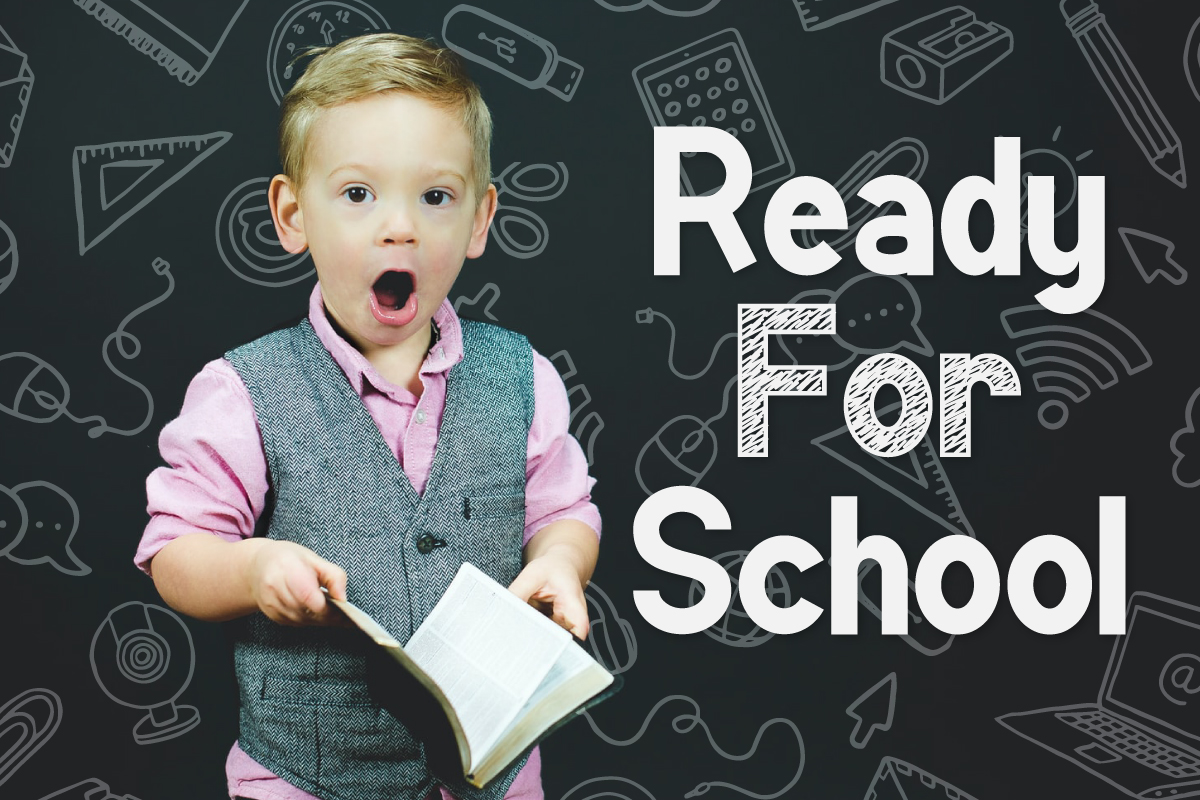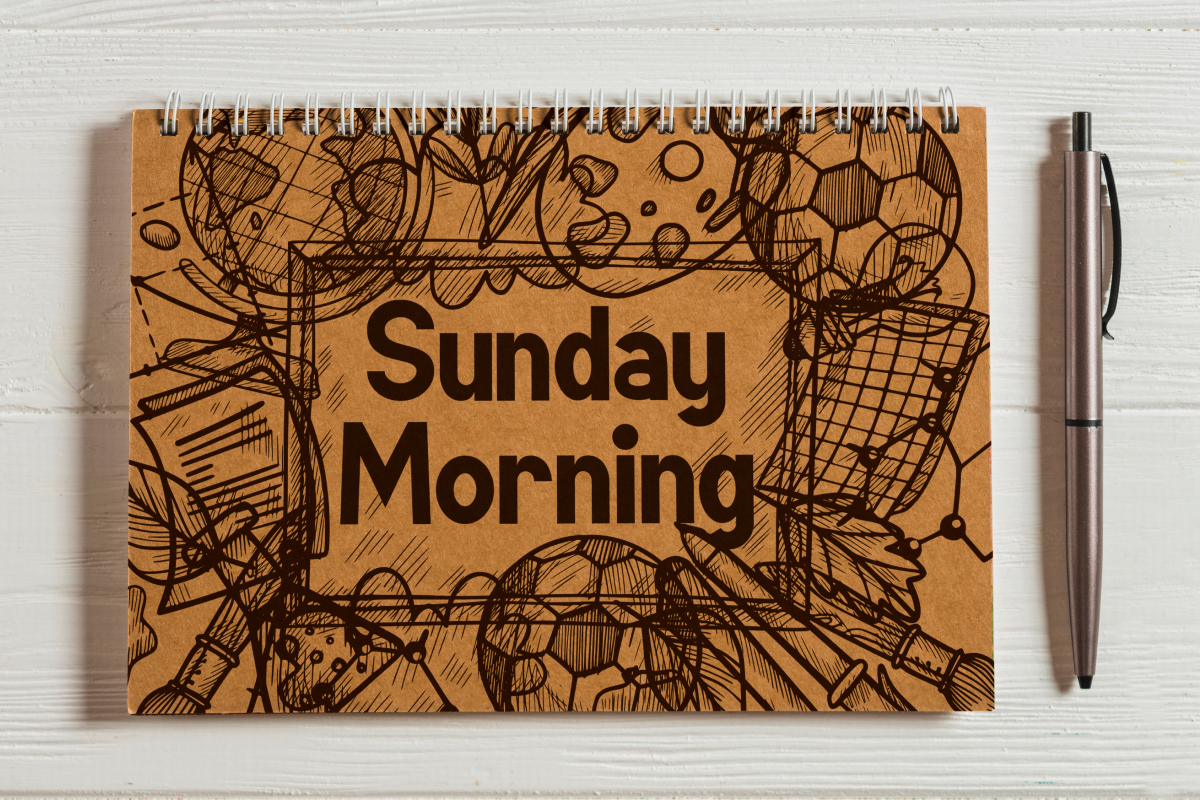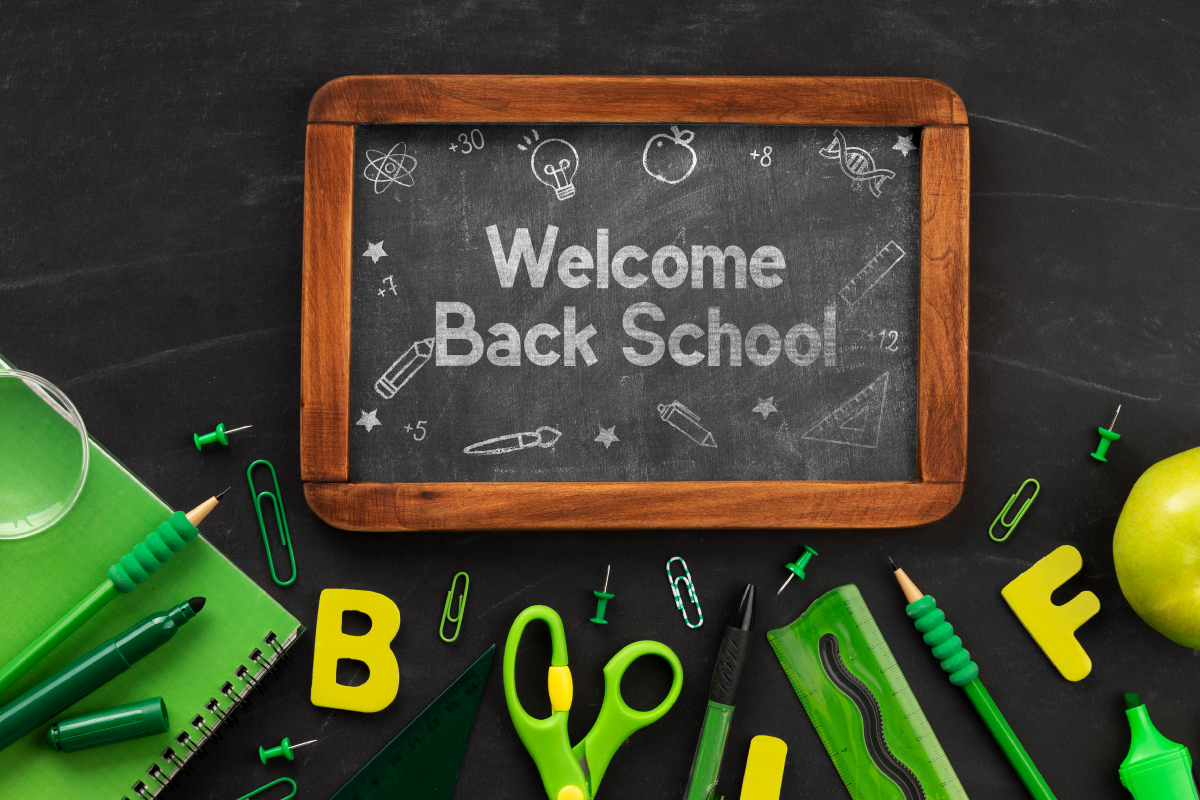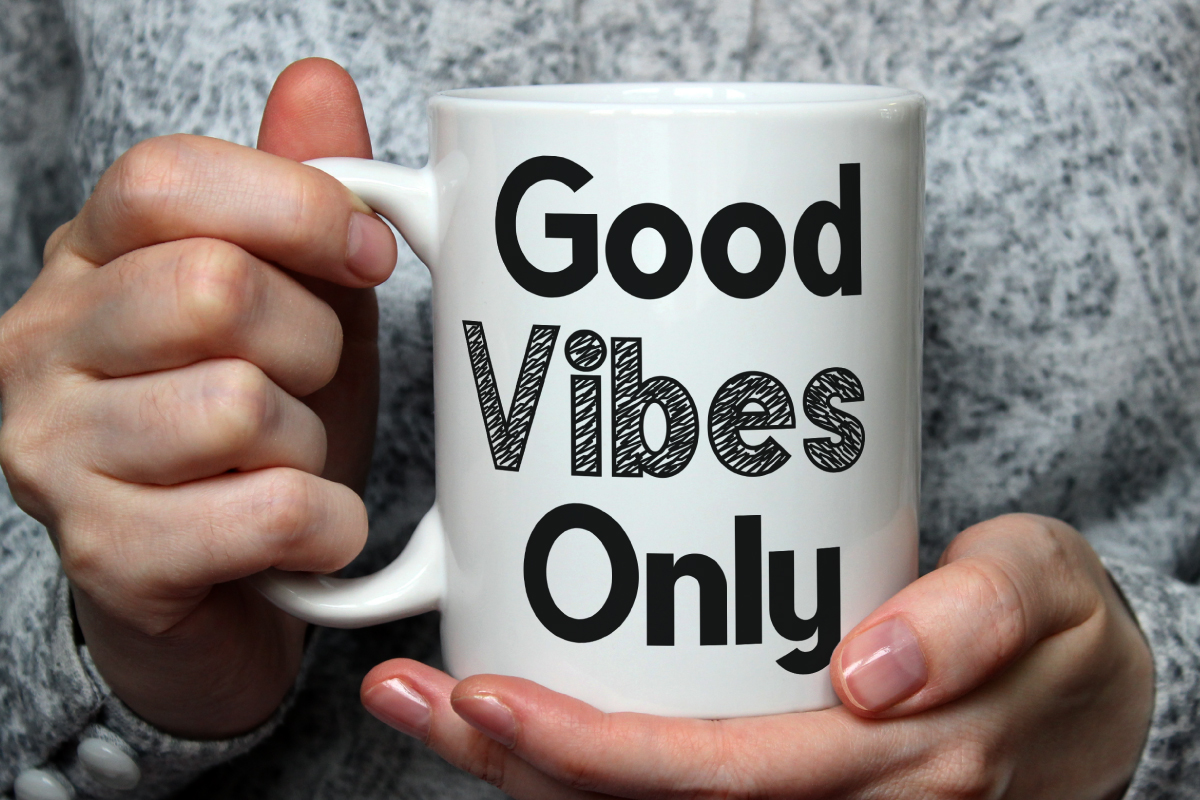
Kinder School Font
Kinder School Display Font
This is a sans serif and display font with chalk doodle sketch style. The font comes with two different styles: regular clean style and rough sketch font. This font will be amazing for any project : school project, classroom, kids products, toys company and many more